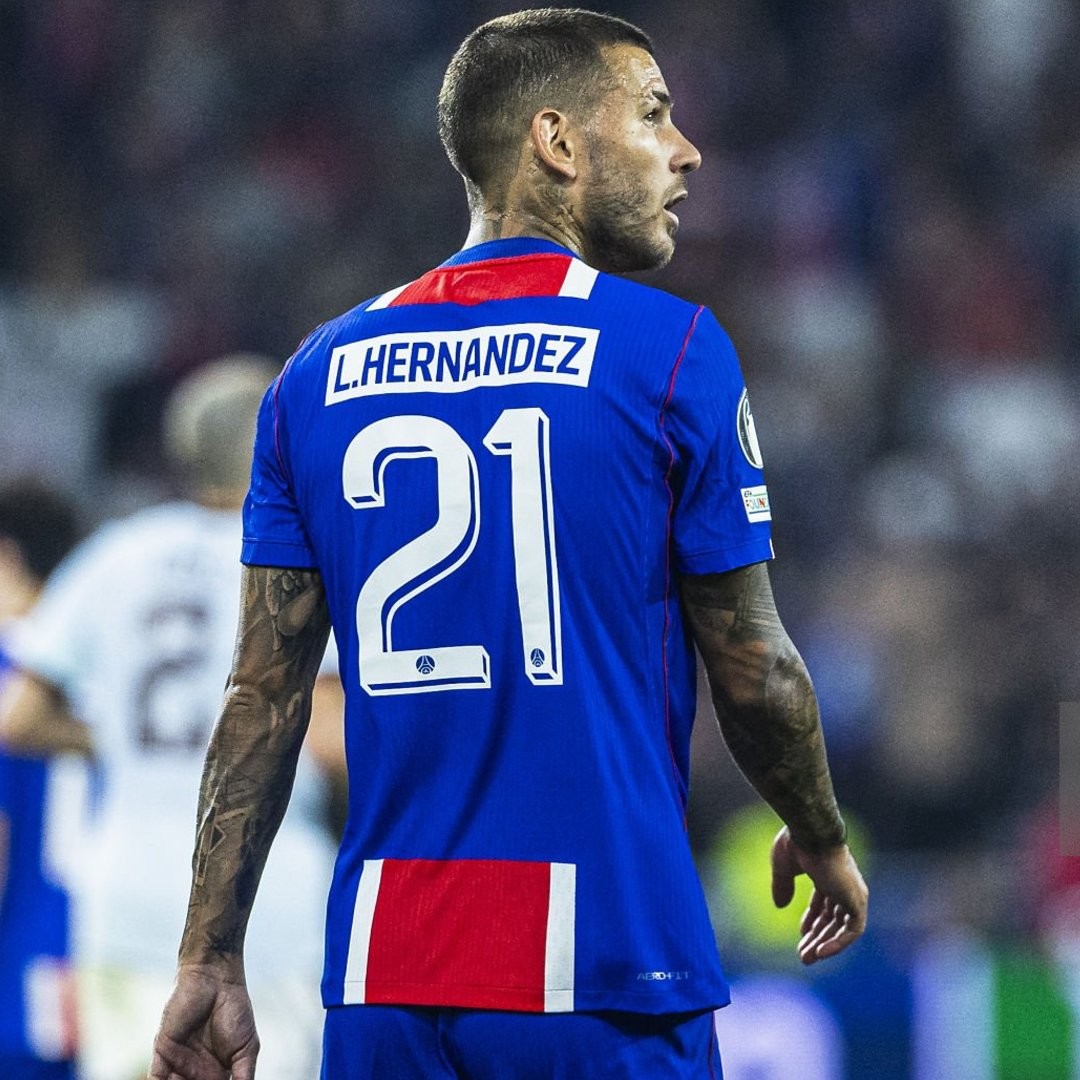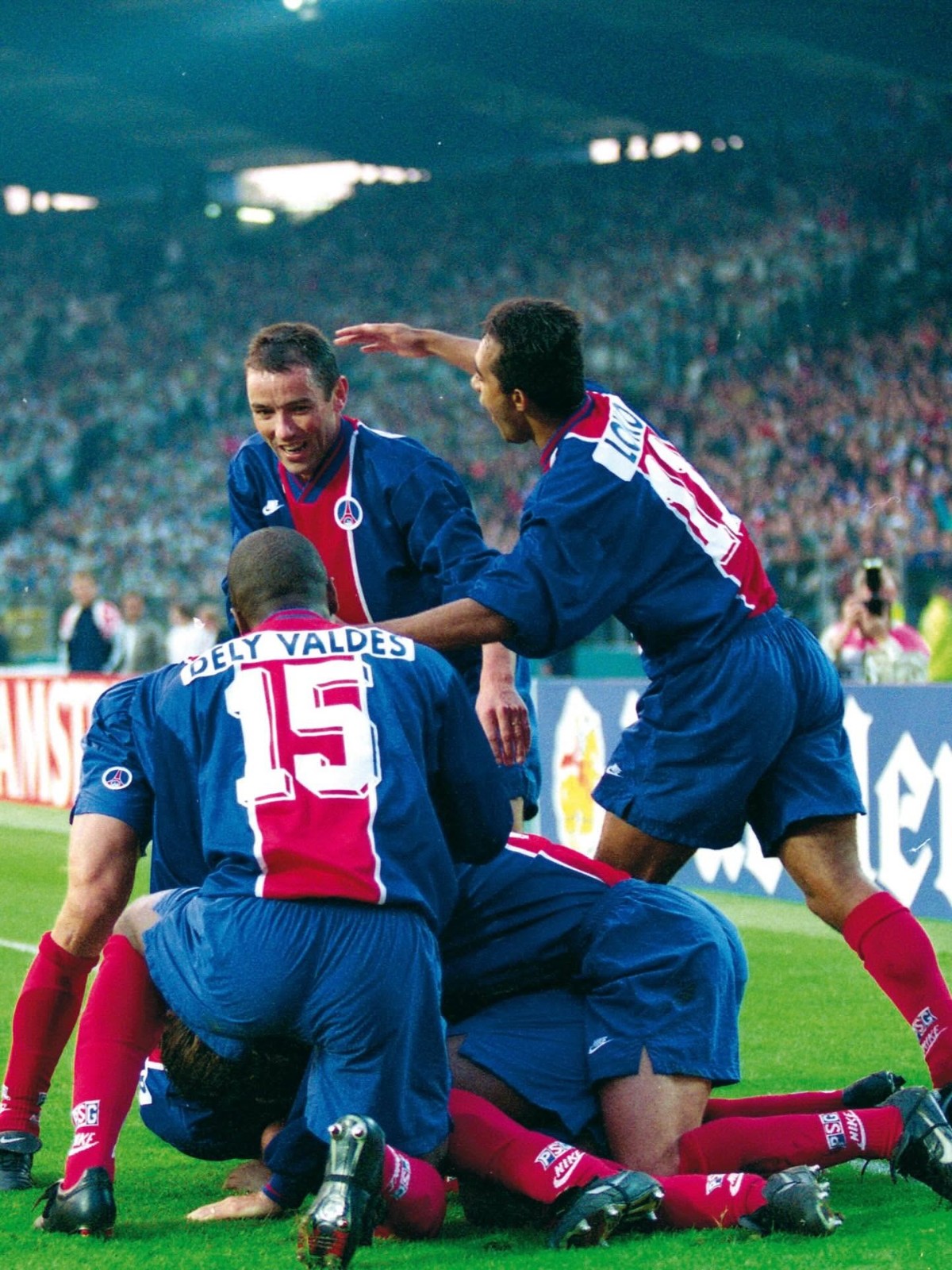
PSG Debut Retro-Inspired Champions League Font in UEFA Super Cup
Paris Saint-Germain officially debuted their special cup font for their 26-27 home jersey during the 2026 UEFA Super Cup clash against Aston Villa. The nameset made a striking visual statement on the pitch, featuring player names enclosed in sharp white rectangular boxes alongside 3D-styled squad numbers.
This unique typography takes direct inspiration from the legendary font worn by PSG during their victorious 95-96 UEFA Cup Winners' Cup campaign - the first major European trophy in the club's history.
While the streamlined standard typeface will continue to be used in domestic Ligue 1 matches, this nostalgic 90s-style font is set to be worn exclusively during their Champions League title defense.